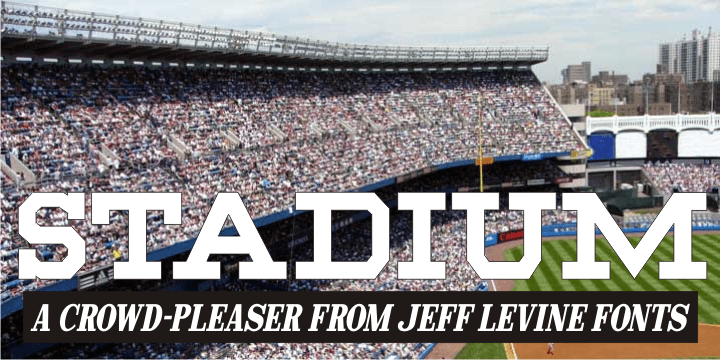
Stadium
Block-style typefaces make excellent sports-themed fonts, and Stadium JNL is no exception… but this lettering style is also filled with nostalgia for decades past.
Modeled from one of the many classic designs found in the Speedball® Lettering Textbook, this style of alphabet was quite popular in signage of the 1920s and 1930s.
Stadium JNL fills the bill either way… a font that is just as much at home on a gridiron or baseball diamond, or as lettering for a garage, warehouse or attention-getting ad copy.